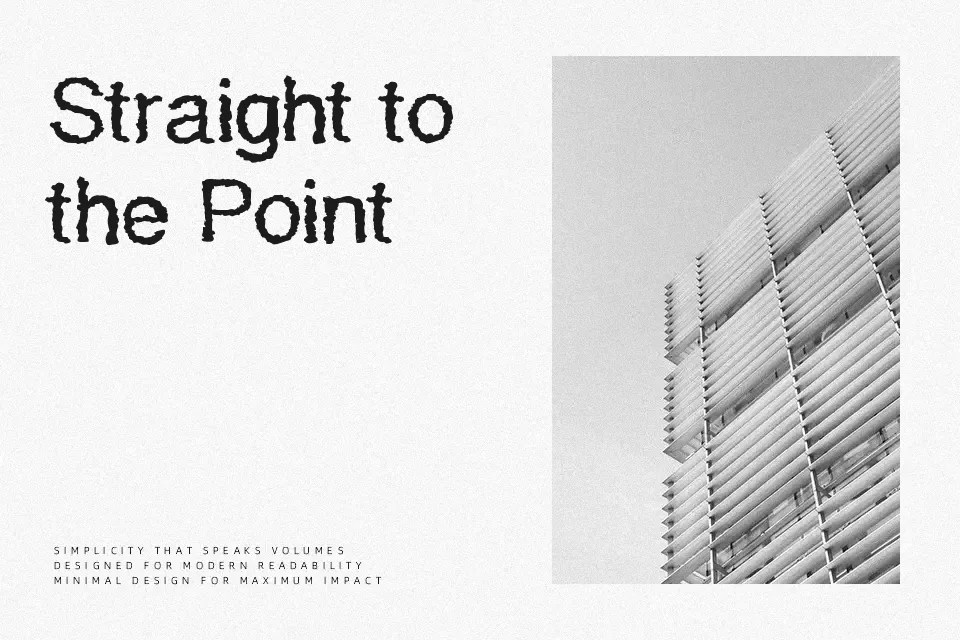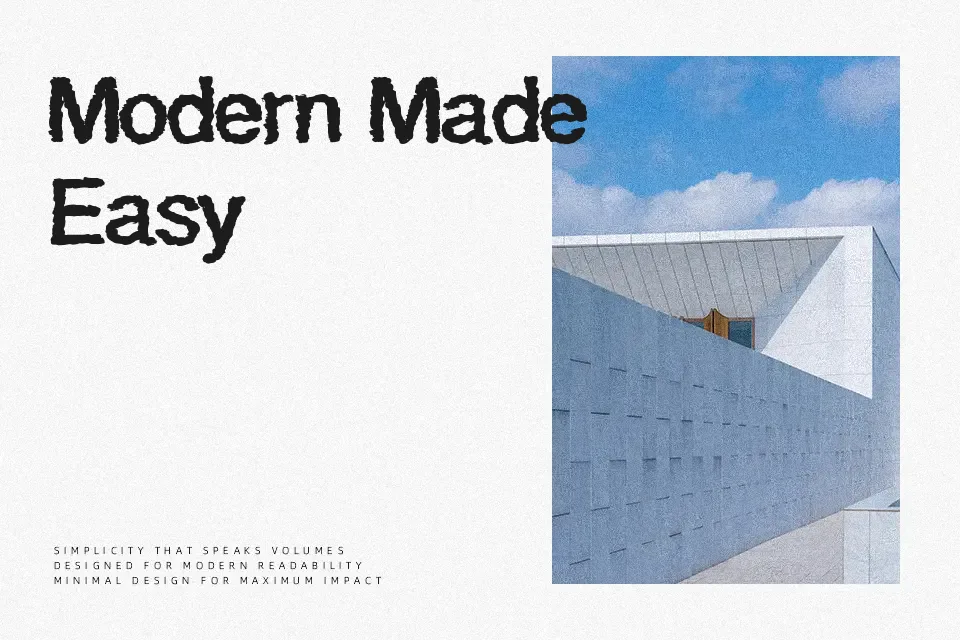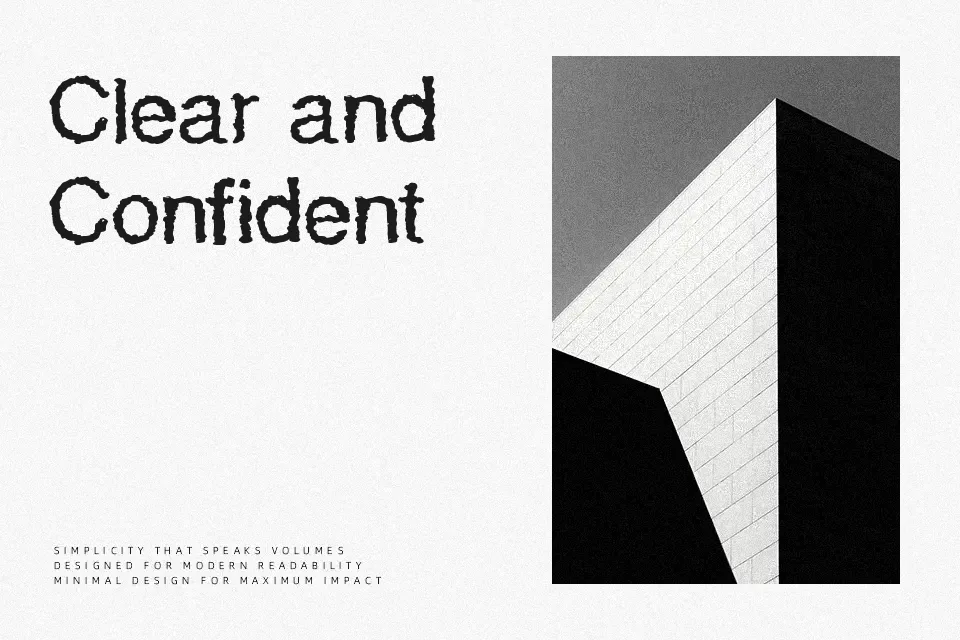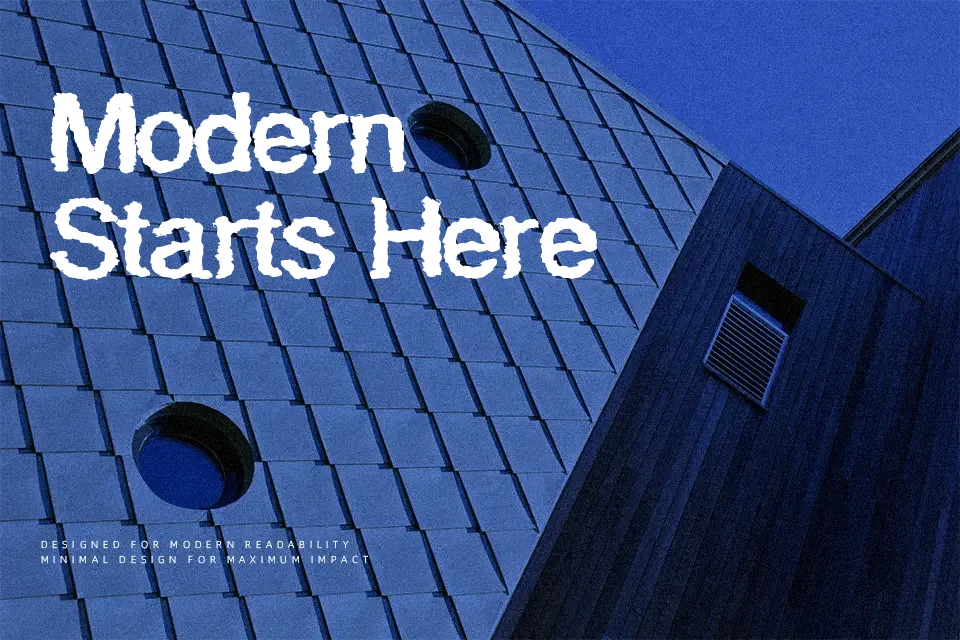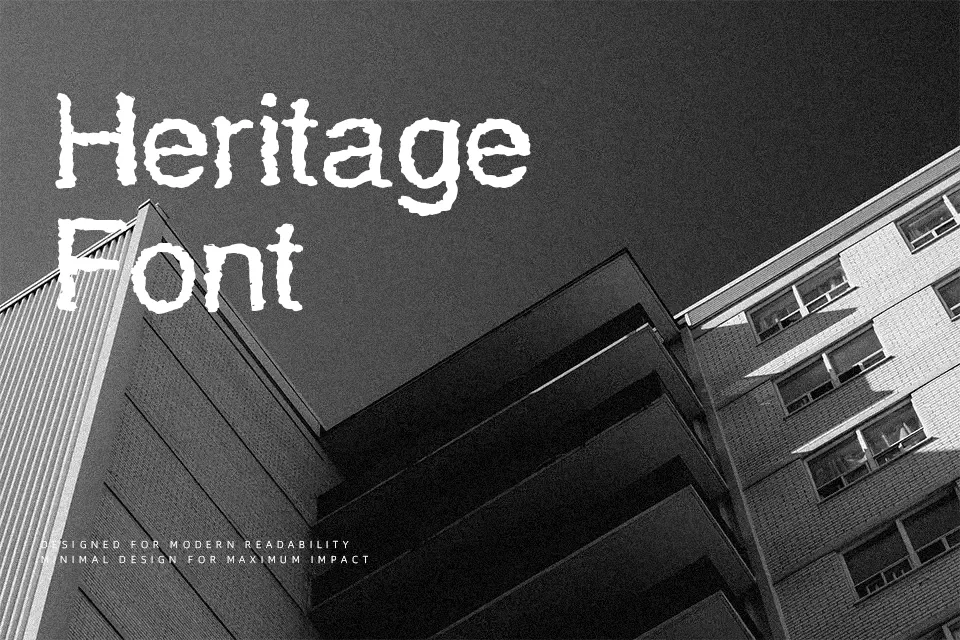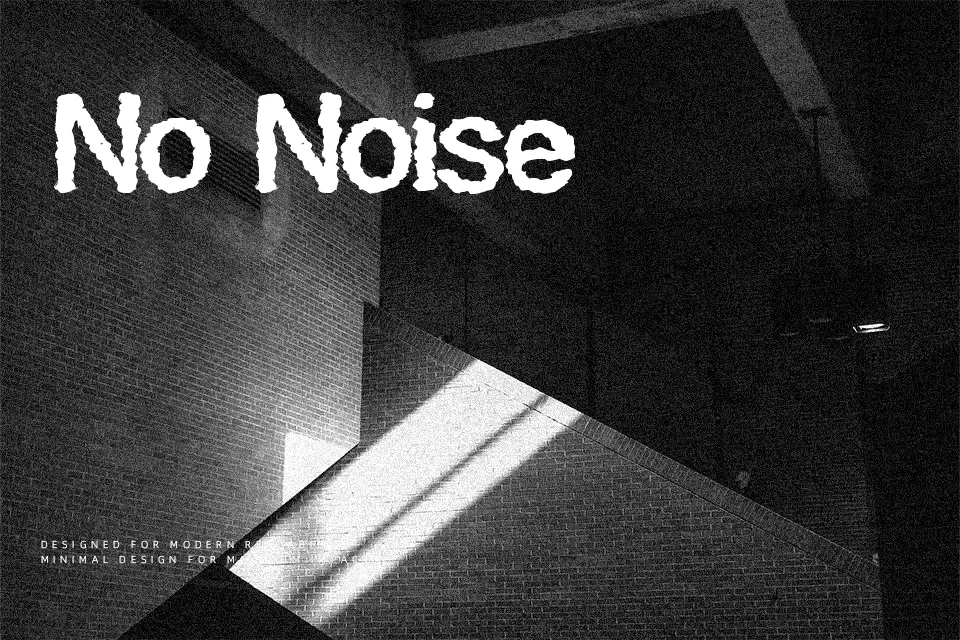
Quaky Font
Quaky Font introduces a visually striking sans-serif foundation disrupted by intentionally shaky, tremulous strokes and jagged contours. The irregular line weights and rough, distressed terminals give the letterforms a chaotic, unsettled rhythm. Proportions remain relatively standard for a display typeface, but the open, slightly unpredictable spacing enhances the energetic aesthetic. This distressed design performs exceptionally well in large headlines for music festival posters, horror themes, or grunge-inspired branding. However, the erratic, eroded details become less effective at smaller sizes, significantly reducing clarity in continuous reading. The tremulous styling helps maintain a strong visual impact in brief, prominent applications.
horror theme branding
grunge apparel graphics
dynamic event headlines
continuous paragraph text
spreadsheet data
Perfect for branding, halloween, and headline, with a dark and decorative style.